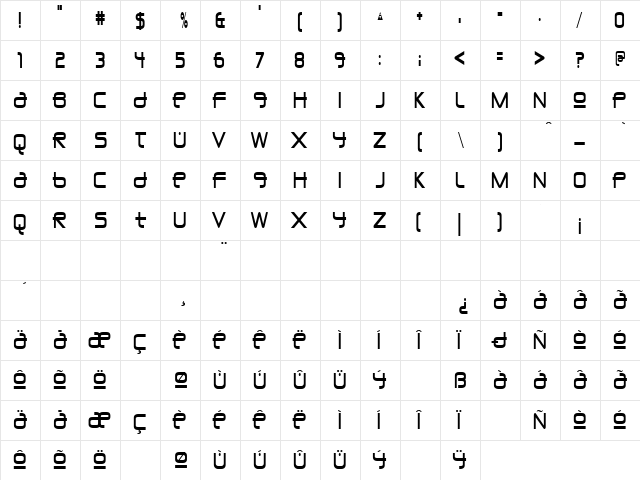
Union City Blue Regular
Design Context for Union City Blue Typeface
Union City Blue takes a measured approach to typography — its balanced proportions and neutral character make it a reliable workhorse for both digital and print work.